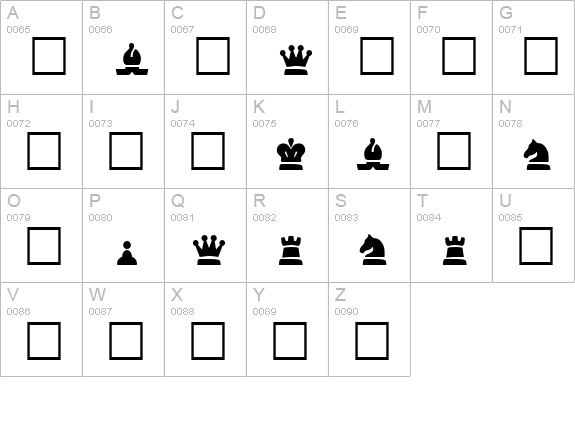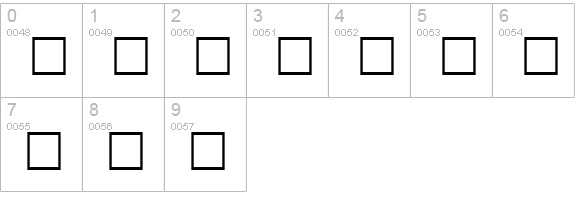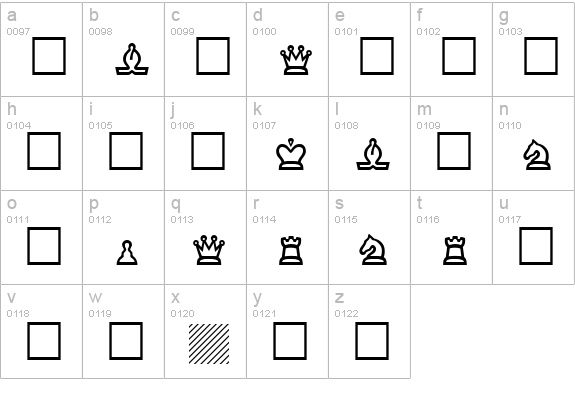
Cheq Font Details
Cheq font is a modern and stylish typeface that exudes sophistication and elegance. With its clean lines and sleek design, Cheq font is perfect for adding a touch of class to any project. Whether you're working on a website, logo, or print design, this font will elevate your work to the next level. What makes Cheq font even more appealing is that it is completely free to download at FontsMarket.com. This means that you can access this high-quality font without any cost, making it a fantastic option for both personal and commercial use. Don't miss out on the opportunity to enhance your designs with Cheq font – download it today and start creating stunning visuals that truly stand out.